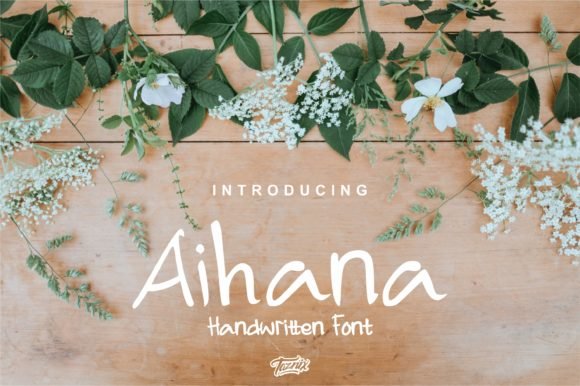
A Touch of Personality with the Aihana Handwritten Font
There’s nothing quite like the feeling of watching an idea come to life on paper. The scratch of a pen, the swoop of a brush, the excitement of seeing your vision take shape. It’s a moment that sparks creativity and fuels inspiration. And when it comes to adding that special something to your designs, Aihana Handwritten Font is the perfect partner in crime.
This delightful mixed handwritten font is more than just a pretty face – it’s a way to infuse your projects with a personal touch that sets them apart from the rest. With its happy vibe and hand-drawn charm, Aihana Handwritten Font is the perfect choice for designers looking to add a little extra love to their work.
Whether you’re a seasoned pro or just starting out, Aihana Handwritten Font is a valuable addition to any designer’s toolkit. Its versatility and charm make it the perfect tool for bringing your ideas to life in a way that’s uniquely yours.
Aihana Handwritten Font Key Features
- Font style: Handwritten, Script
- Unique characteristics: Includes ligatures, swashes, and flourishes for added elegance and sophistication
- Language support: Supports Latin, Cyrillic, and Greek alphabets
Aihana Handwritten Font Review
I recently had the chance to work with the Aihana Handwritten Font, and I must say, it’s a unique and beautiful addition to any design project. ✨ The font’s handwritten feel is perfect for creating a personal and intimate atmosphere, making it ideal for branding, invitations, and other creative applications.
One of the things I love about Aihana is its versatility. It comes in a range of styles, from casual to elegant, allowing you to choose the perfect look for your project. ✨ The font also includes a wide range of languages, making it a great choice for international designs.
- ⚠️ Limited character set: While the font includes a wide range of languages, the character set is not as extensive as some other fonts.
- ⚠️ Not ideal for large blocks of text: Due to its handwritten nature, Aihana is best suited for short paragraphs and headlines.
Overall, I’m really impressed with the Aihana Handwritten Font. It’s a beautiful and versatile font that can add a unique touch to any design project. While it may have some limitations, I believe it’s well worth considering for your next design project.
Tips for Getting the Most Out of Aihana Handwritten Font
Use the Aihana Handwritten Font for titles, headings, and emphasis. Experiment with different font sizes and colors to create visual hierarchy. Combine it with other fonts for a unique and creative look.
The Aihana Handwritten Font is perfect for:
- Handmade and craft-related designs
Alex Brush Font is a beautiful and elegant handwritten font that is reminiscent of traditional brush calligraphy. It has a similar organic feel to Aihana Handwritten Font, but with a more refined and polished appearance. Alex Brush Font is ideal for use in creative projects such as invitations, posters, and book covers where a touch of elegance is needed.
Q: Is the Aihana Handwritten Font optimized for digital use?
Yes, the Aihana Handwritten Font is designed with digital use in mind and includes features such as hinting and kerning to ensure optimal display on various screens and devices.